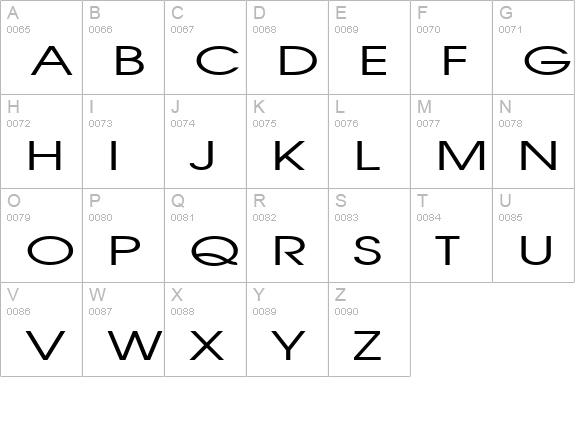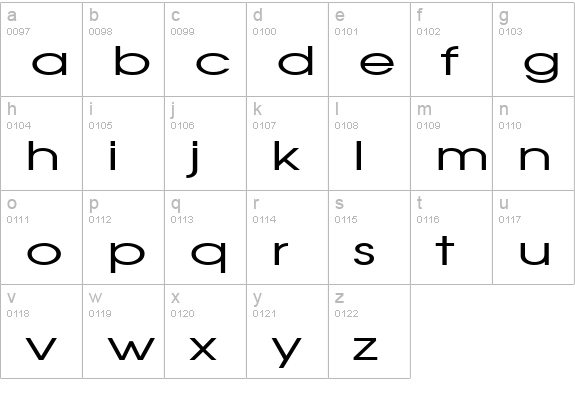
Atilla Extended Normal Font Details
Atilla Extended Normal is the standard, neutral, extended-width variant in the Atilla typeface family \xE2\x80\x94 well suited to general body text, paragraphs, and standard typographic work.
Atilla Extended Normal is a versatile and stylish font that exudes a modern and sophisticated charm. Its sleek lines and balanced proportions make it perfect for a wide range of design projects, from branding to editorial layouts. This font strikes the perfect balance between professionalism and creativity, making it a top choice for designers looking to make a statement. What's even better is that Atilla Extended Normal is available for free download at FontsMarket.com. This means you can easily get your hands on this high-quality font without breaking the bank. Don't miss out on the opportunity to add Atilla Extended Normal to your font library and elevate your designs with its distinctive appeal.